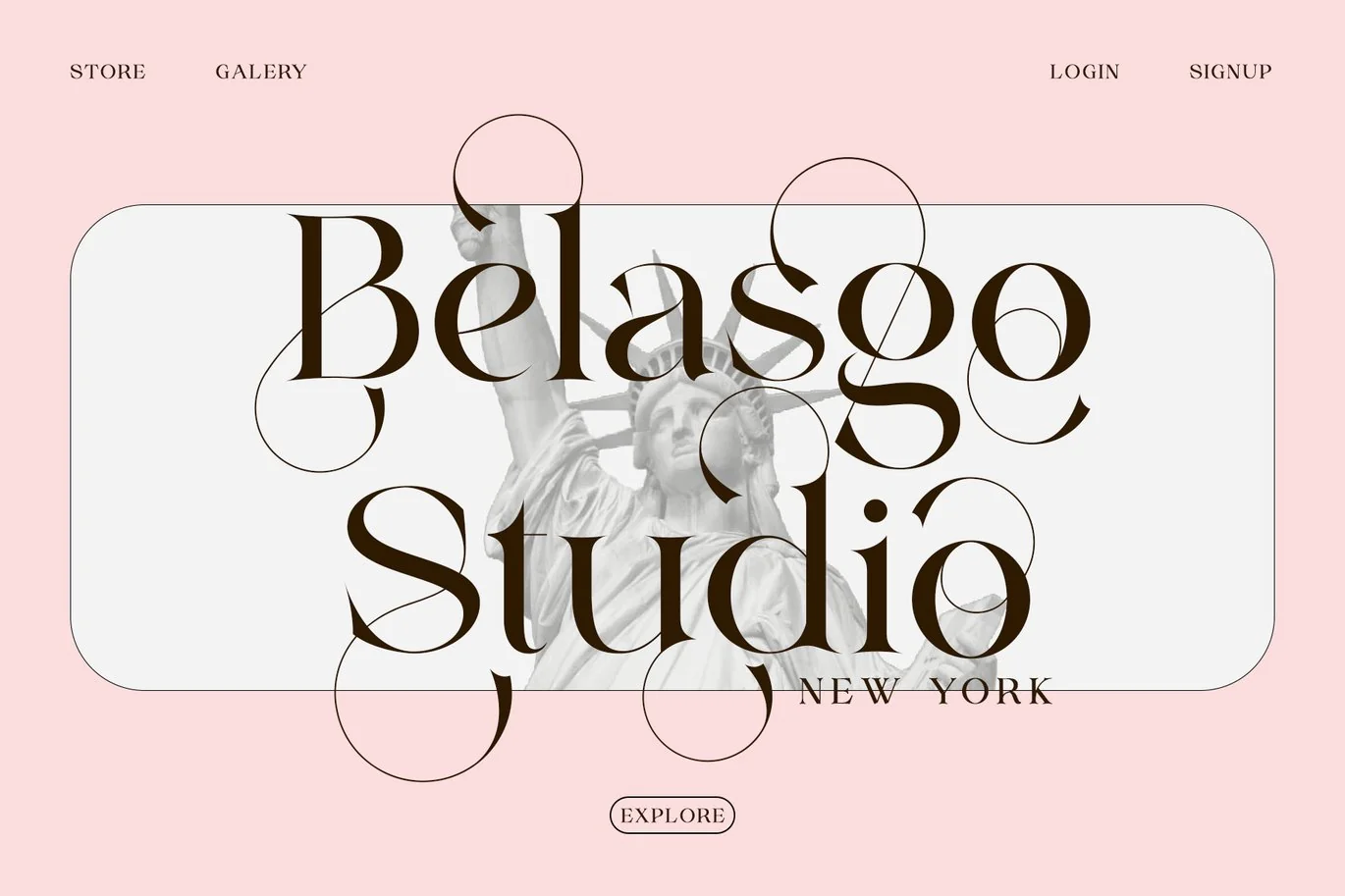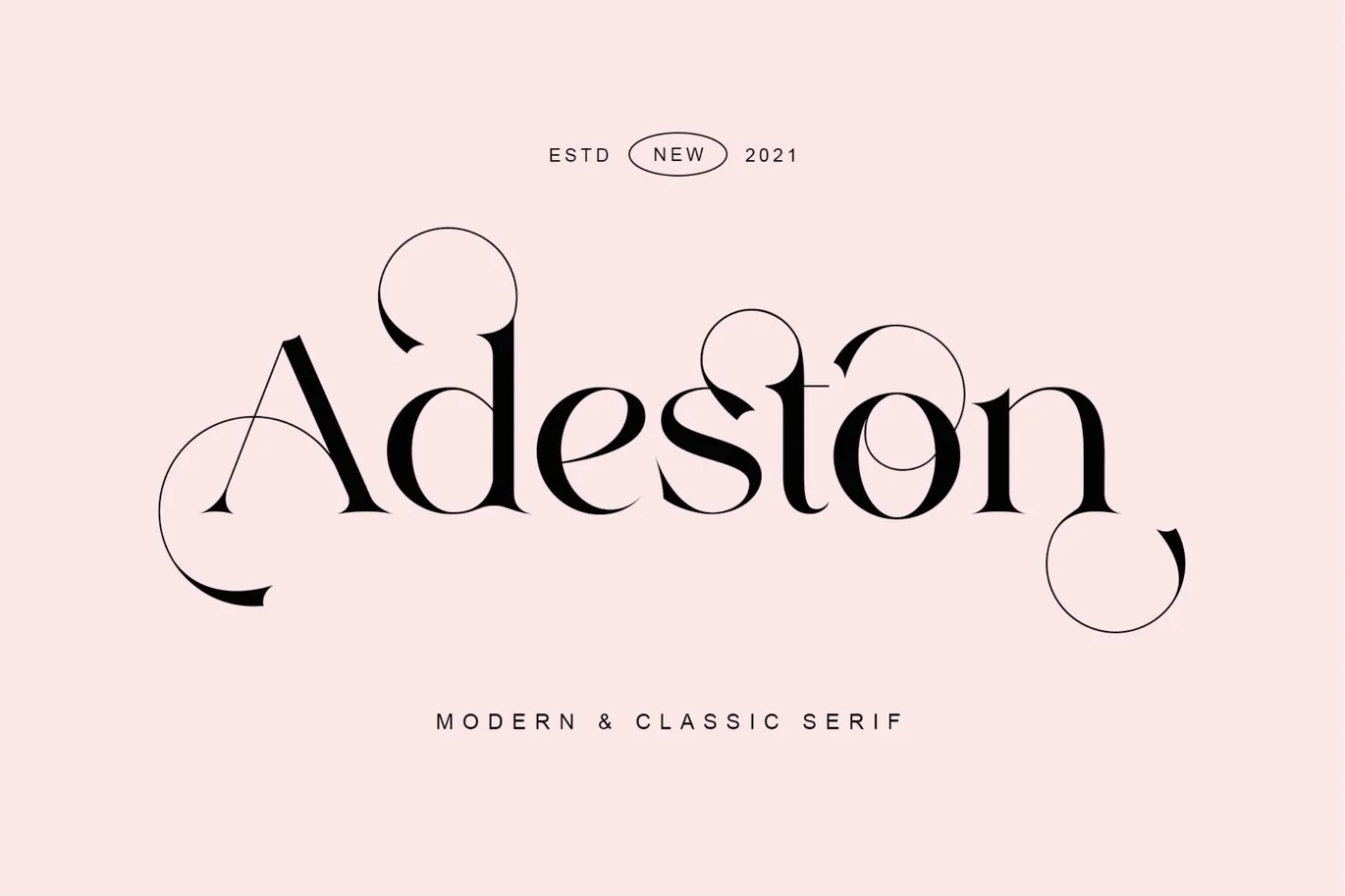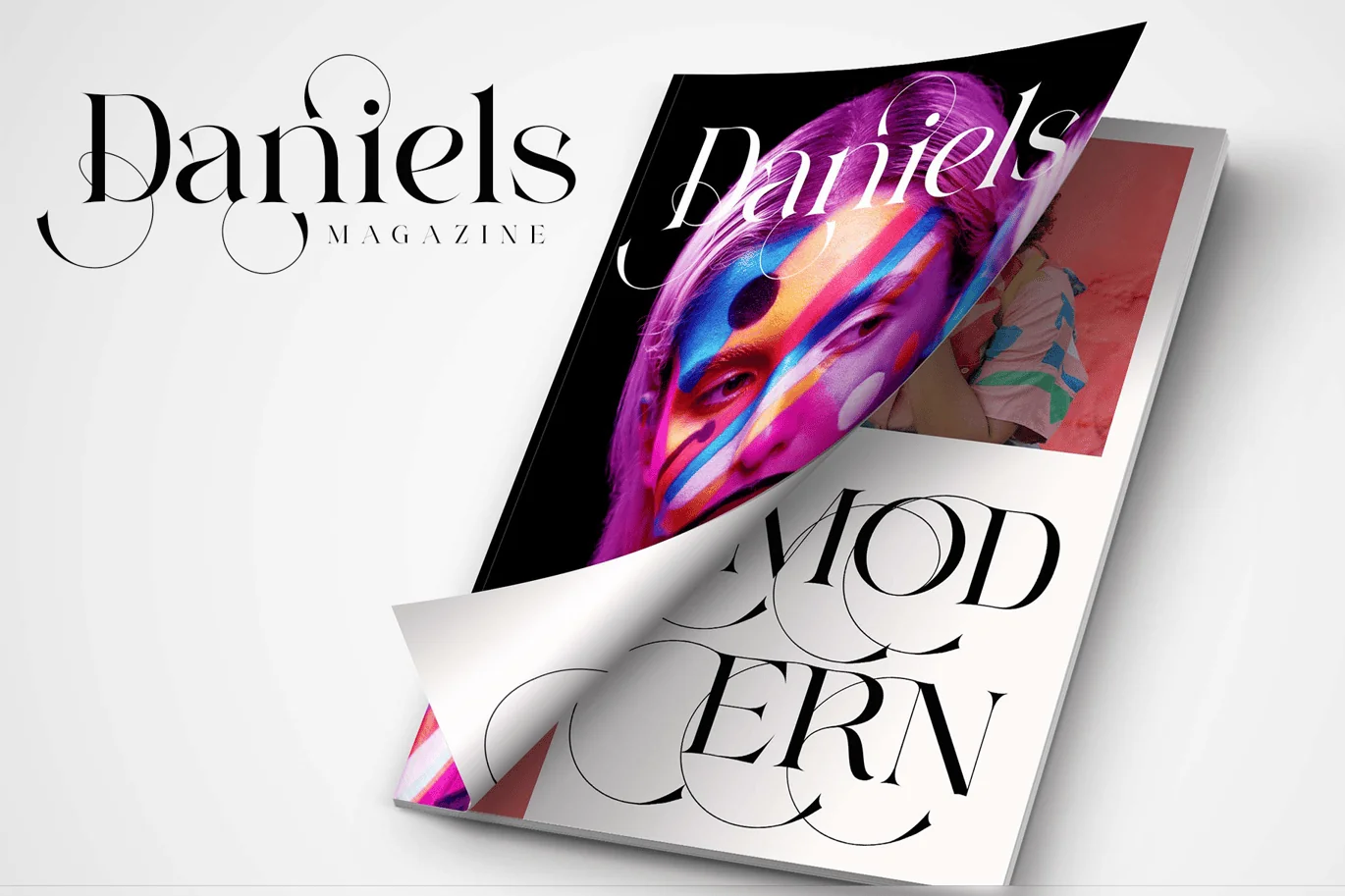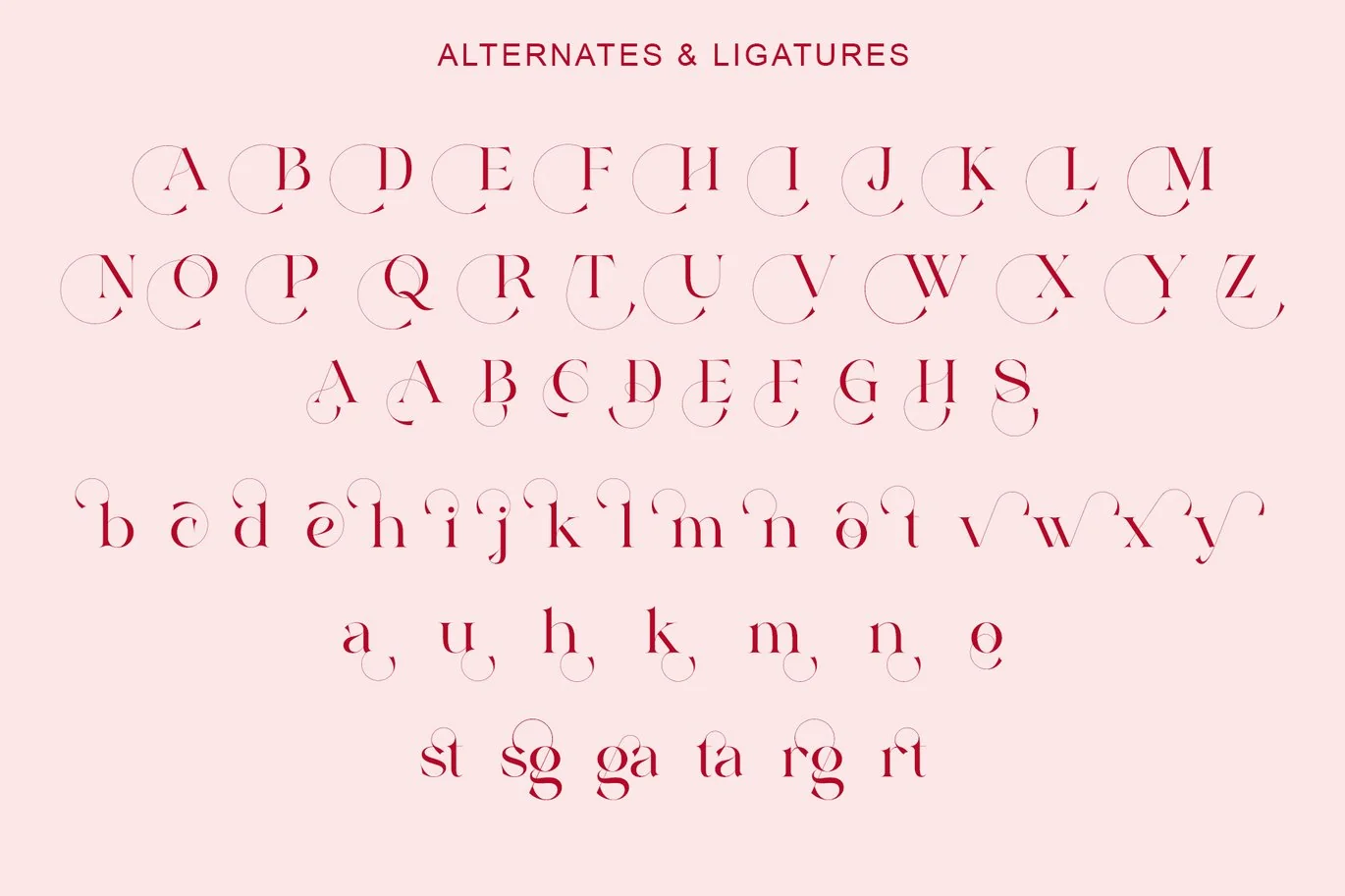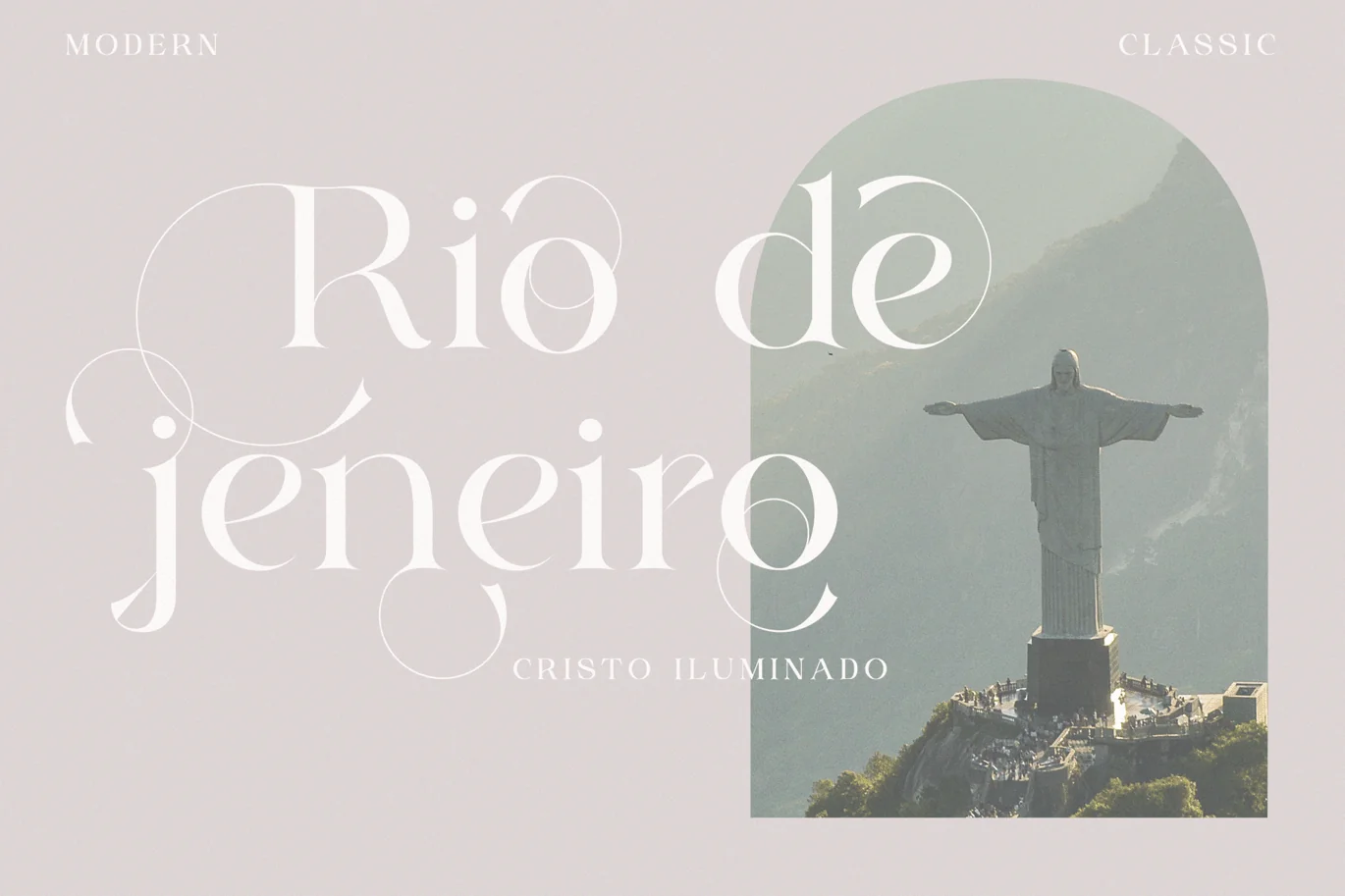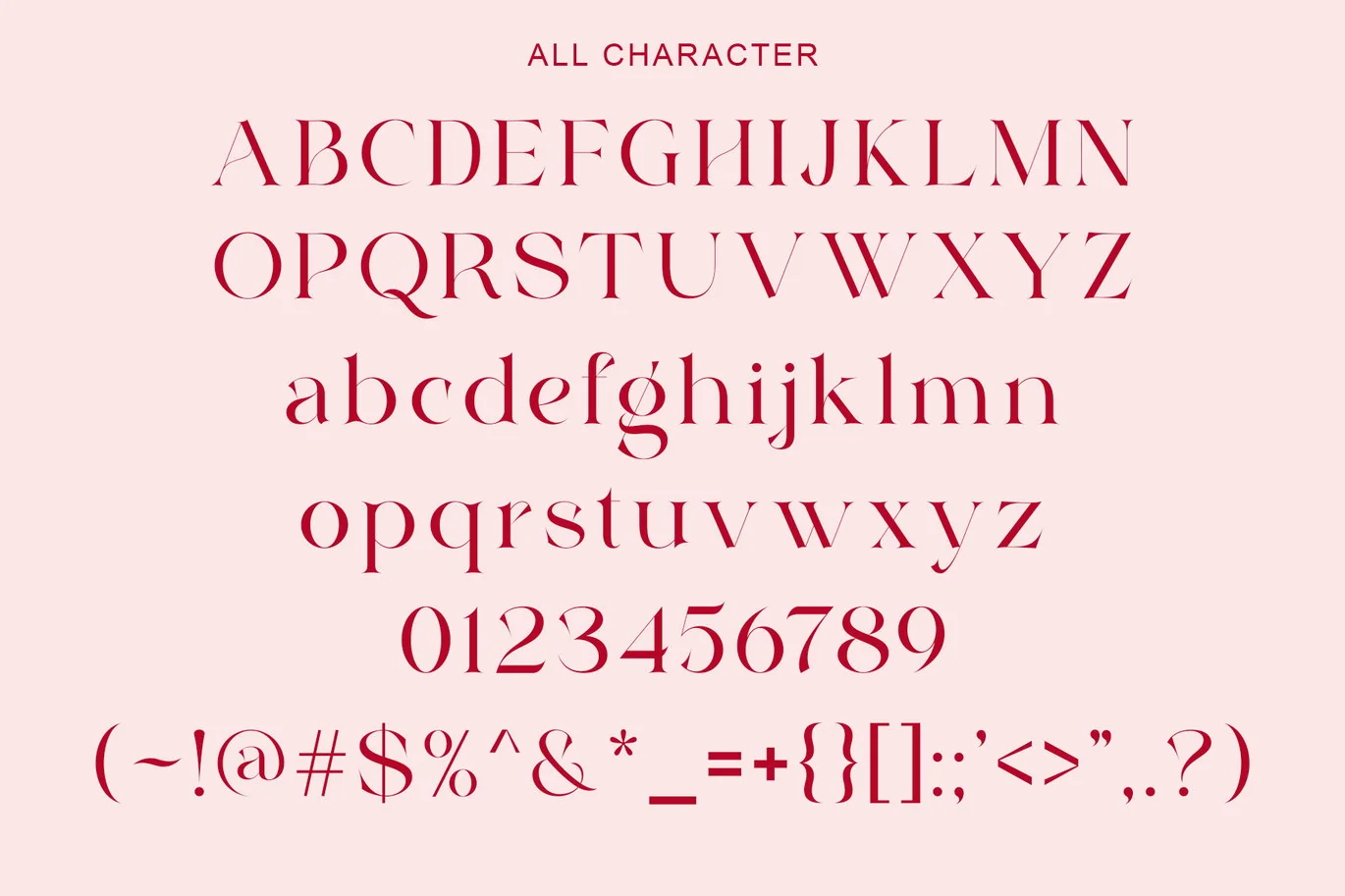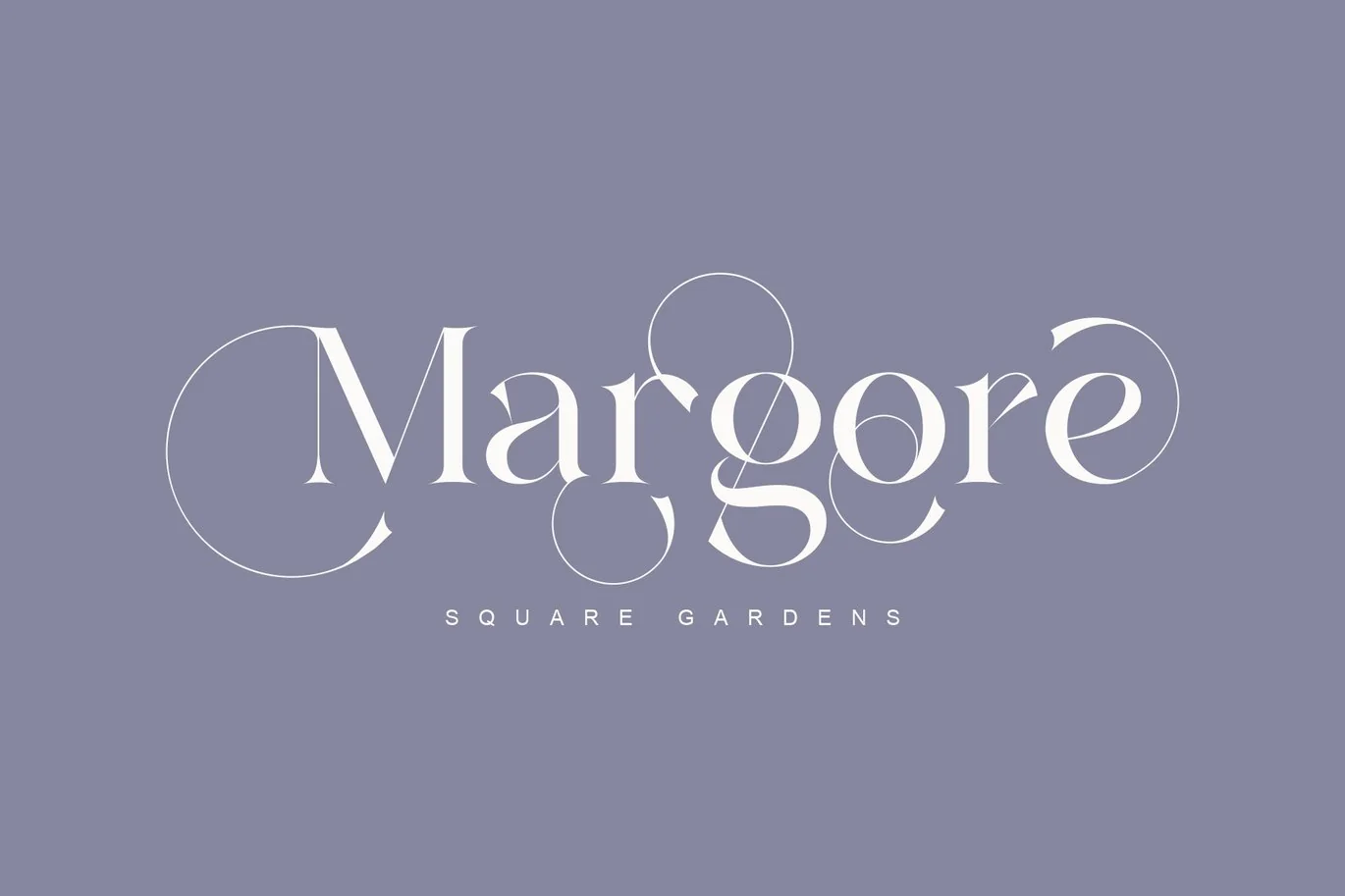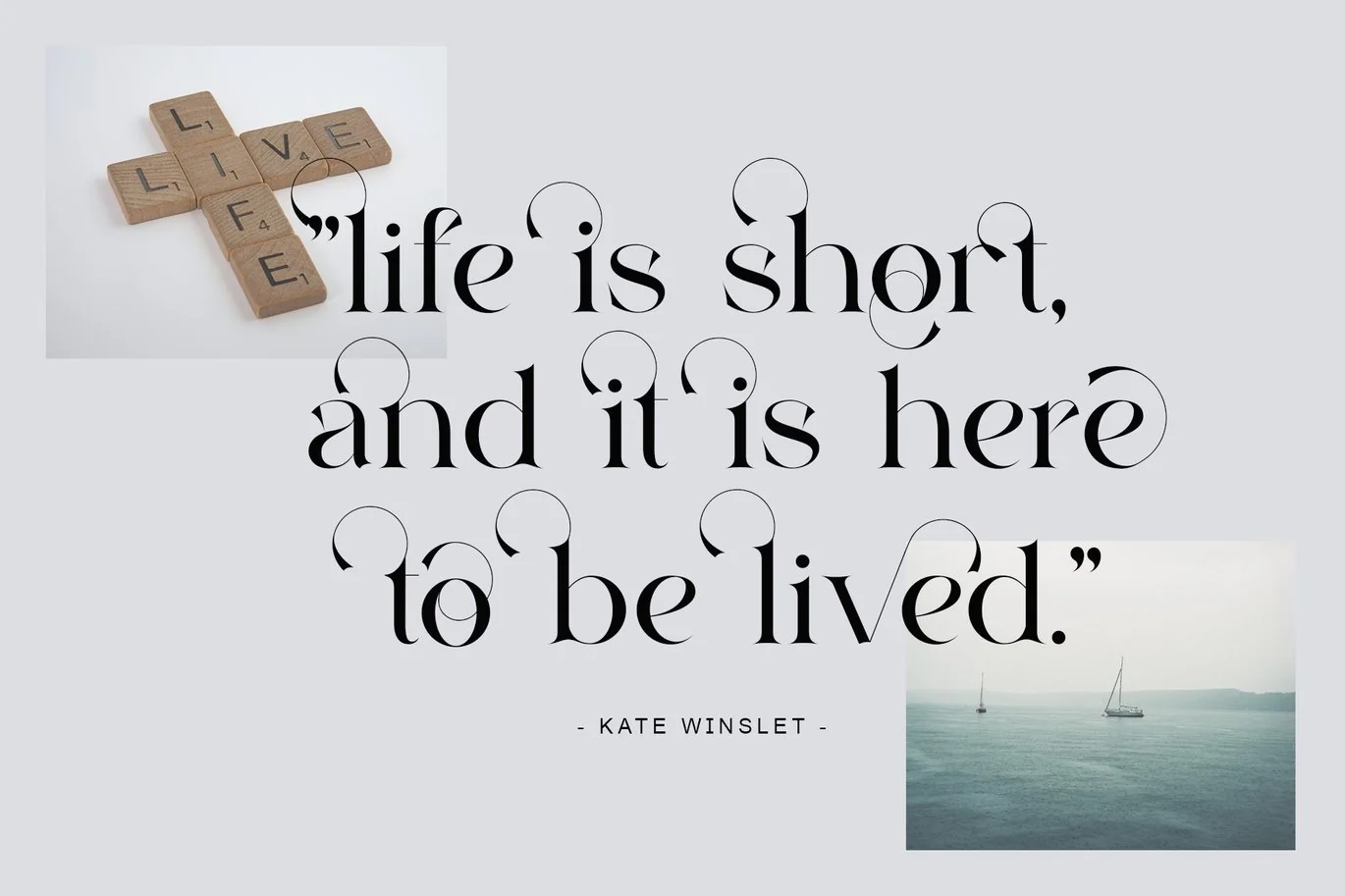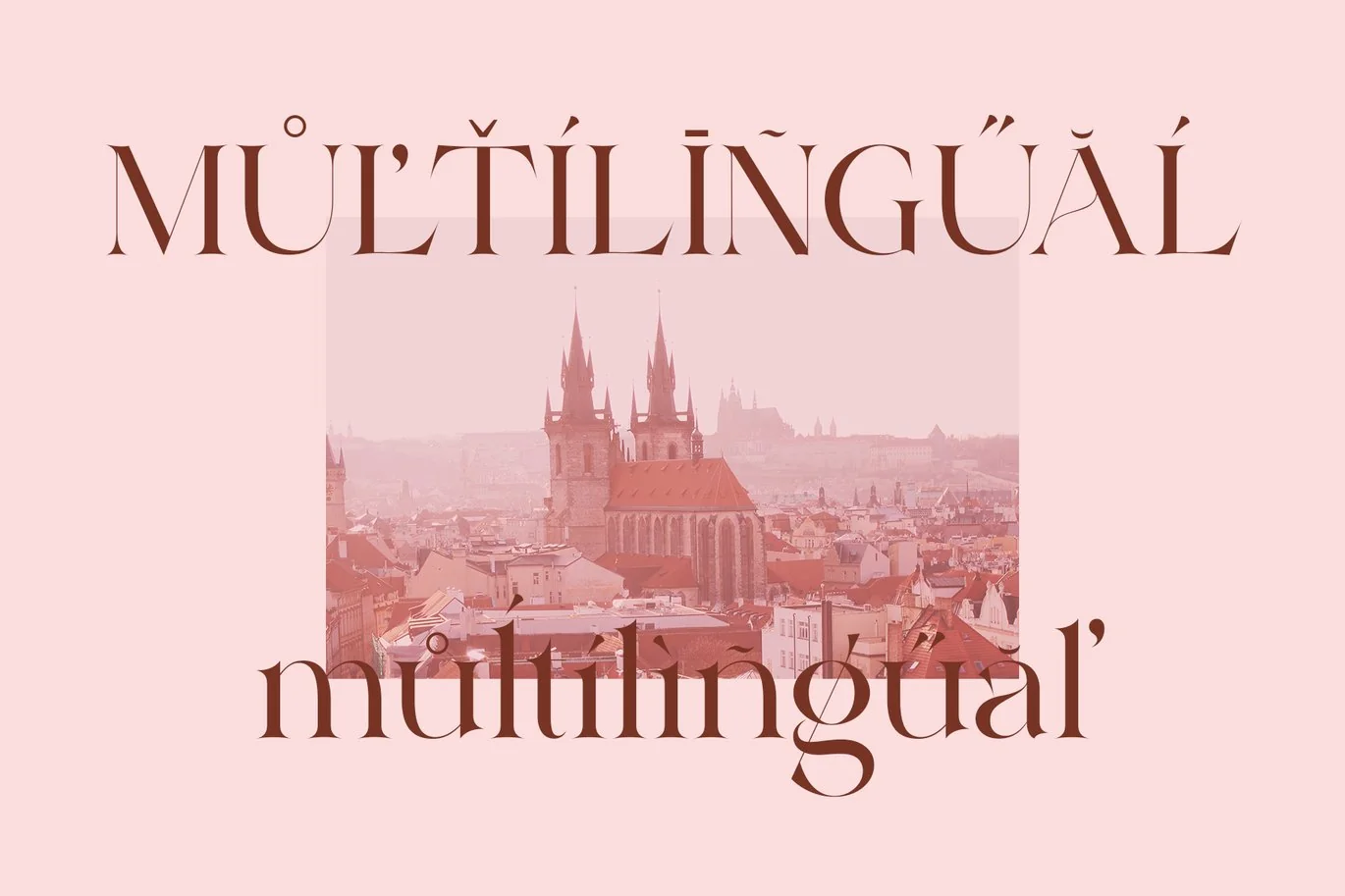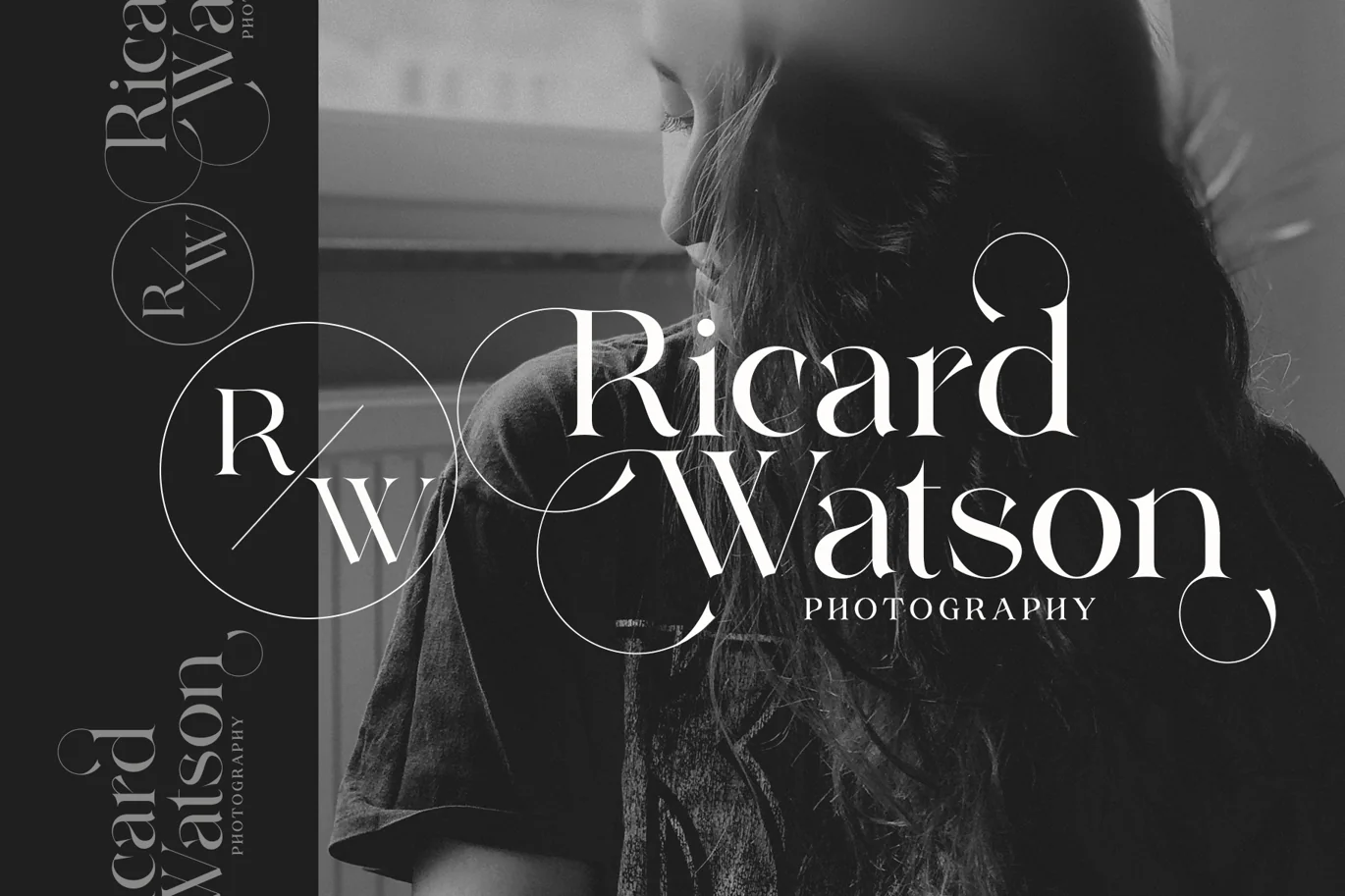
Adeston|Stylish Serif Typeface
Adeston is a modern multilingual serif enhanced by ligatures & alternates.
Adeston is a very versatile font – with it’s classic forms and modern features it will cover a wide range of design projects starting from greeting cards to magazines, wedding invitations, websites etc. The amount of alternates is tremendous, from simple stylistic alternates to ligatures and their alternates.